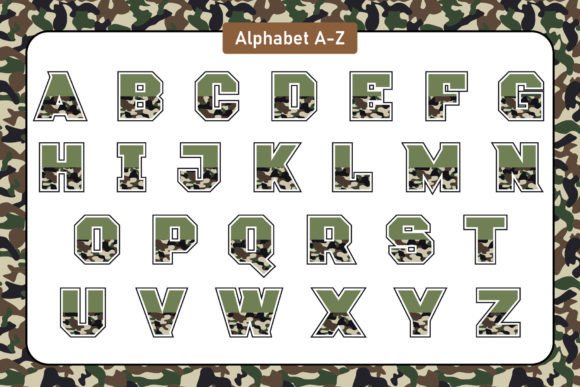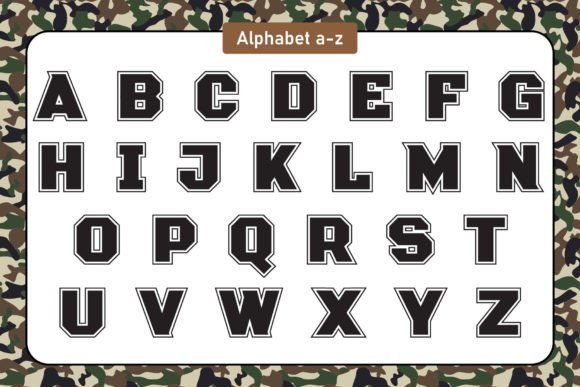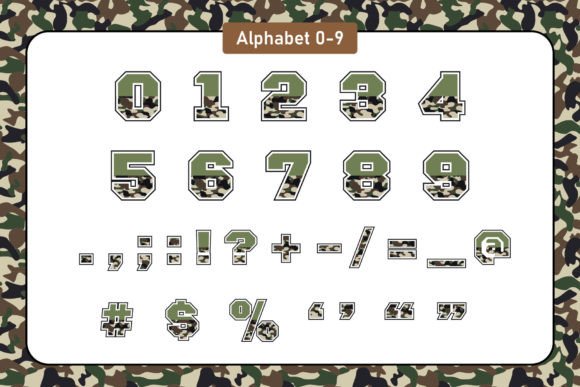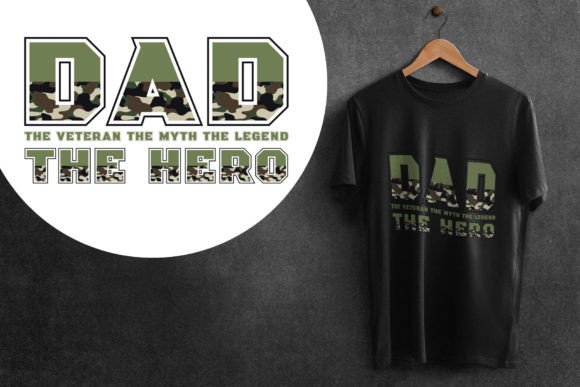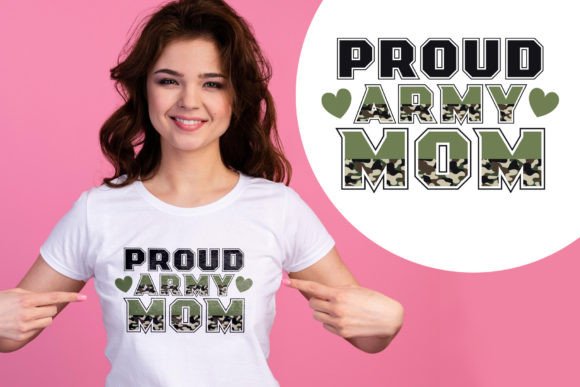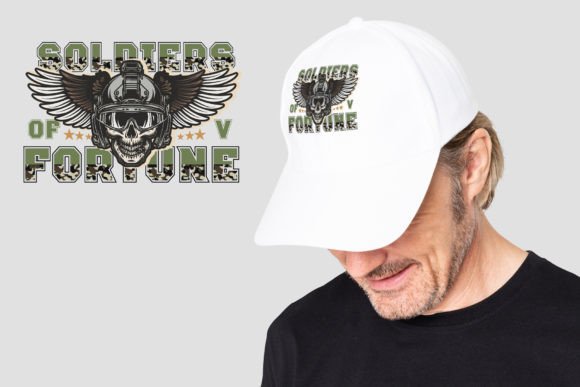
Introduction to Half Soldier Font
Have you ever been brainstorming a creative project, only to be struck by a brilliant idea that demands to be brought to life? For many designers, that moment of inspiration is the spark that sets their imagination ablaze. But what happens when you need a design resource that’s just as bold and eye-catching as your vision?
Enter the Half Soldier Font, a high-quality, decorative color font that’s sure to elevate any creative project. With its fun and playful vibe, this versatile font is perfect for designing t-shirts, tote bags, hats, stickers, and more. And with its transparent background, you can rest assured that your design will stand out from the crowd.
Key Features of Half Soldier Font
- High-quality, bold, and modern font design, perfect for creative projects.
- Transparent background, allowing for seamless integration with any design element.
- Unique and distinctive design, making it an ideal choice for designers seeking a bold and eye-catching font.
Honest Review: Half Soldier Font
I recently came across the Half Soldier Font while searching for a unique design resource for a creative project. I was impressed by the high quality of the font, which I downloaded for free. The transparent background made it easy to integrate into my design without any background distractions.
- Unique design style that stands out from the crowd
- High quality rendering, even at large font sizes
- Transparent background makes it easy to use in various design scenarios
- ⚠️ Limited character set, which may be a concern for longer texts
- ⚠️ Not ideal for body text, as it can be a bit overwhelming
Overall, I’m impressed with the Half Soldier Font. It’s a great design resource for projects where a bold, eye-catching font is needed. While it may not be suitable for all design scenarios, I appreciate its unique style and high quality rendering. If you’re looking for a creative way to add some visual interest to your design, the Half Soldier Font is definitely worth checking out.
Tips for Getting the Most Out of Half Soldier Font
To get the most out of the Half Soldier Font, use it in a creative project that requires a high-quality, unique font. Experiment with different font sizes, colors, and styles to find the perfect fit for your project. Use the font as a design resource to add a professional touch to your work.
The Half Soldier Font is commonly used in creative projects that require a high-quality, unique font. It is a great design resource for logos, business cards, and brochures. The transparent background option makes it easy to use the font in a variety of design applications.
Alternatives to Half Soldier Font
Great Vibes Font is a high-quality, elegant script font perfect for creative projects that require a touch of sophistication. It’s ideal for wedding invitations, greeting cards, and other design elements that need a delicate, handwritten feel. When to use: wedding invitations, greeting cards, stationery.
Great Vibes Font is a great alternative to Half Soldier Font as it offers a more refined and sophisticated look, making it suitable for formal and elegant designs. Unlike Half Soldier Font, Great Vibes Font doesn’t have a bold or rugged feel, making it a better choice for designs that require a softer touch.